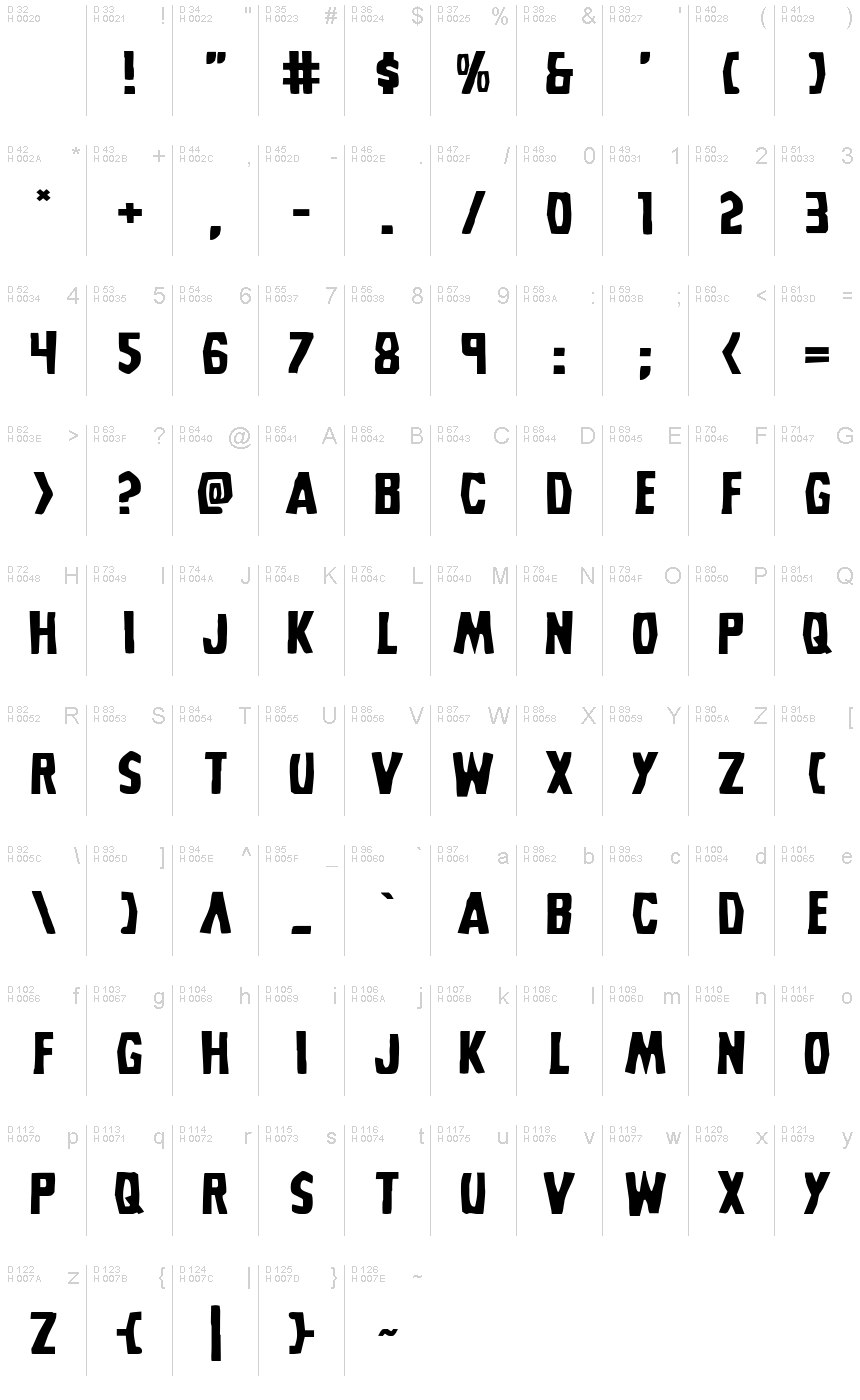
Grim Ghost Expanded, designed in 2024 by Iconian Fonts, is a free cartoon display font with a hulking, unruly silhouette. The tall letters bulge, pinch, and lean at odd angles.
Its comic-horror style suits Halloween posters and haunted-attraction signage, especially when the design wants menace with a goofy edge. Album covers and game graphics can use the dense, irregular forms for titles that feel loud and slightly unhinged. Those warped silhouettes also echo monster shapes and torn shadows, letting the lettering become part of the surrounding illustration.
Grim Ghost includes a full character set and the euro symbol.